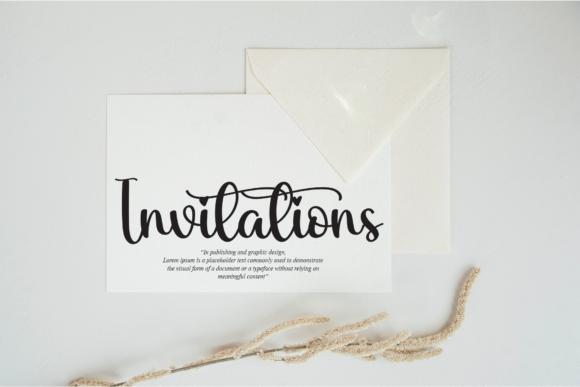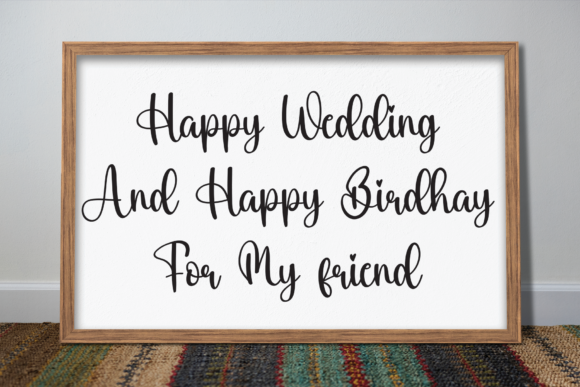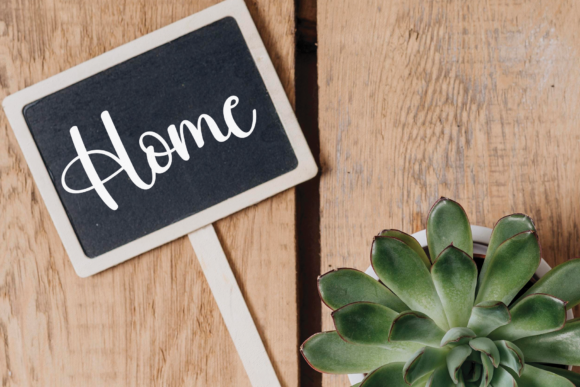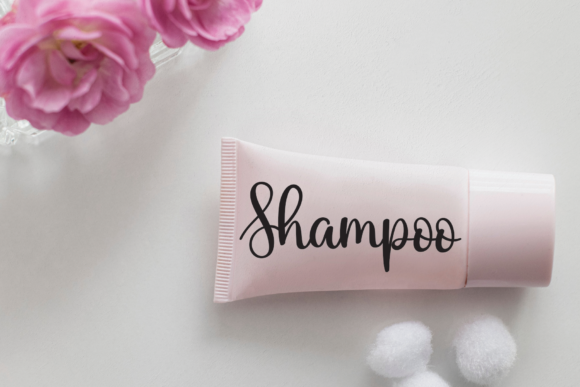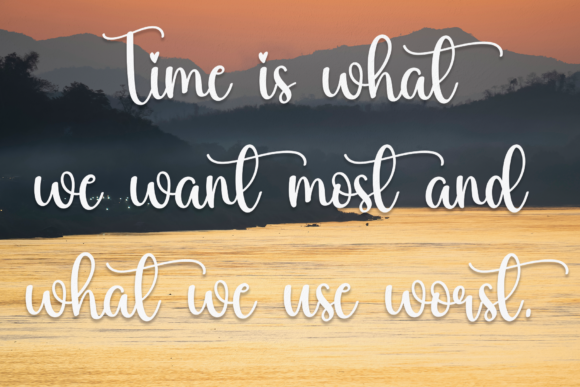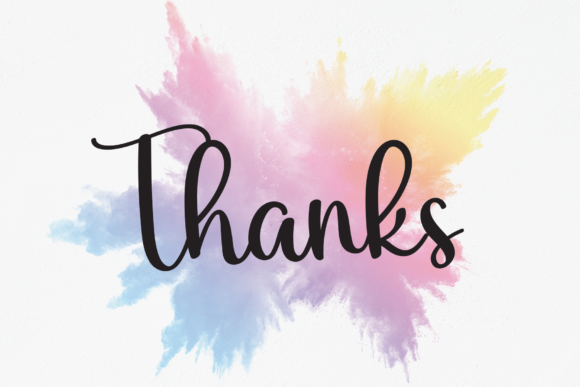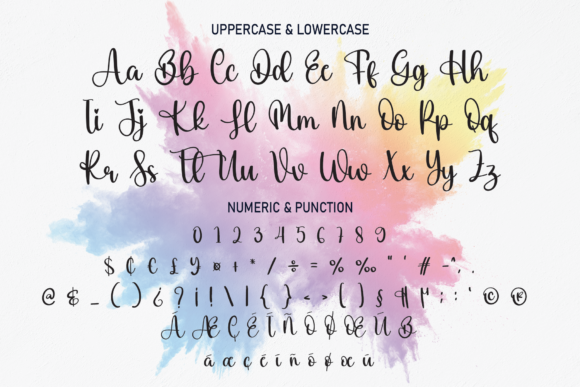
Rainbow Font
About Rainbow Font
Rainbow is a fun and friendly handwritten font that adds a playful and charming touch to any design. With its unique charm, this font is designed to turn your creative ideas into true standouts, infusing a sense of joy and creativity into your projects.
The fun and friendly nature of Rainbow make it versatile for various design applications. Whether used for branding, logos, invitations, or any creative endeavor, Rainbow brings a lighthearted and approachable vibe to your designs.
Rainbow’s handwritten style adds a personal touch, making it ideal for creating unique and engaging designs. Its friendly demeanor makes it suitable for a wide range of projects, allowing you to experiment with different styles and themes.
In summary, Rainbow is more than just a font; it’s a fun and friendly design asset that inspires creativity and adds a charming flair to your projects. Whether applied to branding or other design needs, Rainbow brings a delightful and standout quality to every creative endeavor it graces.